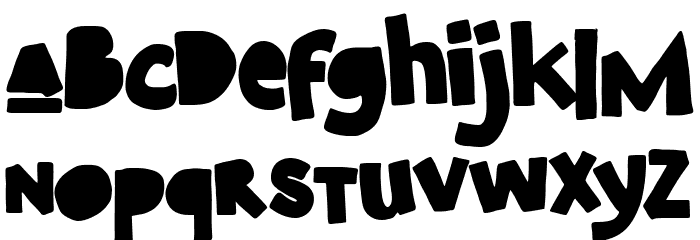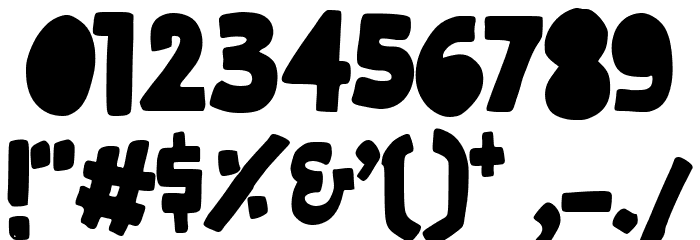
Fried Banana Font
This playful and bold font features a chunky, irregular style that exudes a sense of fun and creativity. The characters are designed with varying widths and exaggerated curves, giving them a whimsical and dynamic appearance. The uppercase and lowercase letters maintain a consistent visual weight, while the numbers and special characters complement the overall aesthetic. This font's unique style makes it stand out, with each character appearing almost hand-drawn, adding a personal touch to any design. Its boldness ensures high visibility, making it ideal for projects that require a strong visual impact.
A playful, bold font with a chunky, irregular style and a whimsical, hand-drawn appearance.
- Font: Fried Banana
- Proposed Projects: Ideal for children's books, playful branding, posters, and creative projects that require a bold, eye-catching typeface.
- Overall Style: Playful, Whimsical, Creative